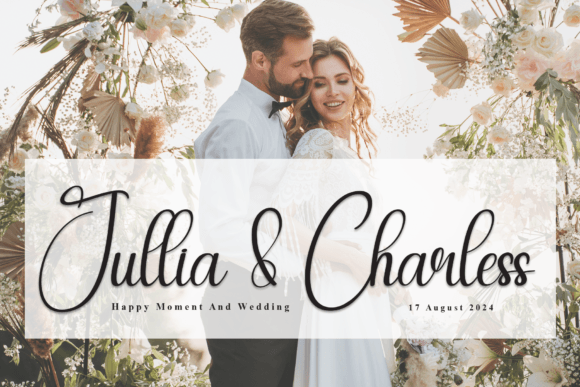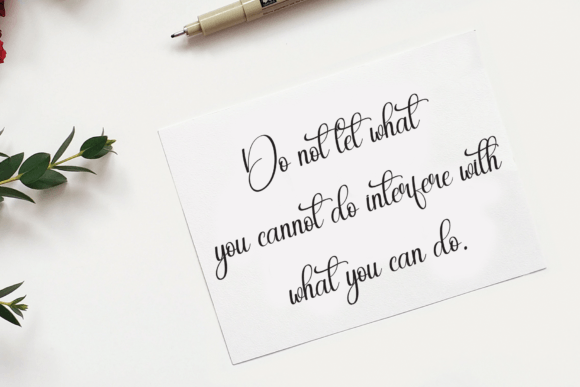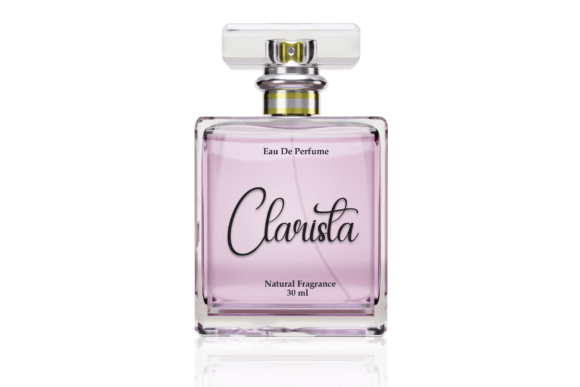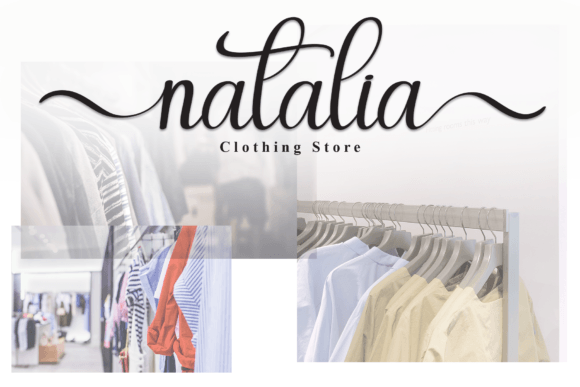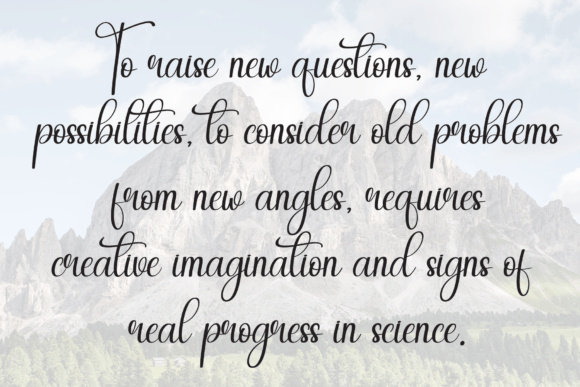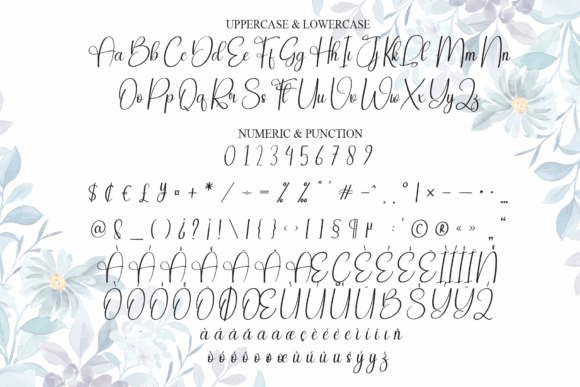
Introducing Ameliya Font: The Sweet and Friendly Handwritten Display Font
Are you looking for a font that embodies the essence of joy and playfulness? Look no further than Ameliya Font, a delightful and charming handwritten display font that is perfect for crafting engaging wedding invitations, heartfelt cards, and any design that calls for a sprinkle of fun.
The Perfect Blend of Joy and Playfulness
Ameliya Font, also known as Sweet and Friendly, is a carefully crafted font that exudes warmth and friendliness. Its endearing characteristics make it an ideal selection for designers and crafters who want to add a personal touch to their creations. Whether you’re designing a wedding invitation, a greeting card, or a social media post, this font is sure to bring a smile to your audience’s faces.
Unlock a World of Creativity
With Ameliya Font, you can unlock a world of creativity and bring your designs to life. This adorable font is thoughtfully created for moments that need a tender and joyful touch. Its playful and whimsical nature makes it perfect for:
- Wedding invitations and announcements
- Birthday cards and party invitations
- Stationery and greeting cards
Key Features of Ameliya Font
So, what makes Ameliya Font so special? Here are some of its key features:
- Handwritten display font with a playful and whimsical feel
- Perfect for designs that require a personal and friendly touch
- Enduring and charming, with a touch of elegance
- Easy to read and understand, making it perfect for body text and headlines
Tips for Using Ameliya Font
To get the most out of Ameliya Font, here are some tips to keep in mind:
- Use it for headlines and titles to add a touch of personality to your designs
- Pair it with other fonts to create a unique and visually appealing combination
- Use it consistently across your designs to create a cohesive brand identity
Why Choose Ameliya Font?
So, why choose Ameliya Font for your next design project? Here are just a few reasons:
- It’s a unique and eye-catching font that will set your designs apart
- It’s versatile and can be used for a range of design projects
In conclusion, Ameliya Font is a delightful and charming handwritten display font that is perfect for designers and crafters who want to add a touch of joy and playfulness to their creations. With its endearing characteristics and versatile nature, it’s an ideal selection for a range of design projects. So why not give it a try and unlock a world of creativity with Ameliya Font?